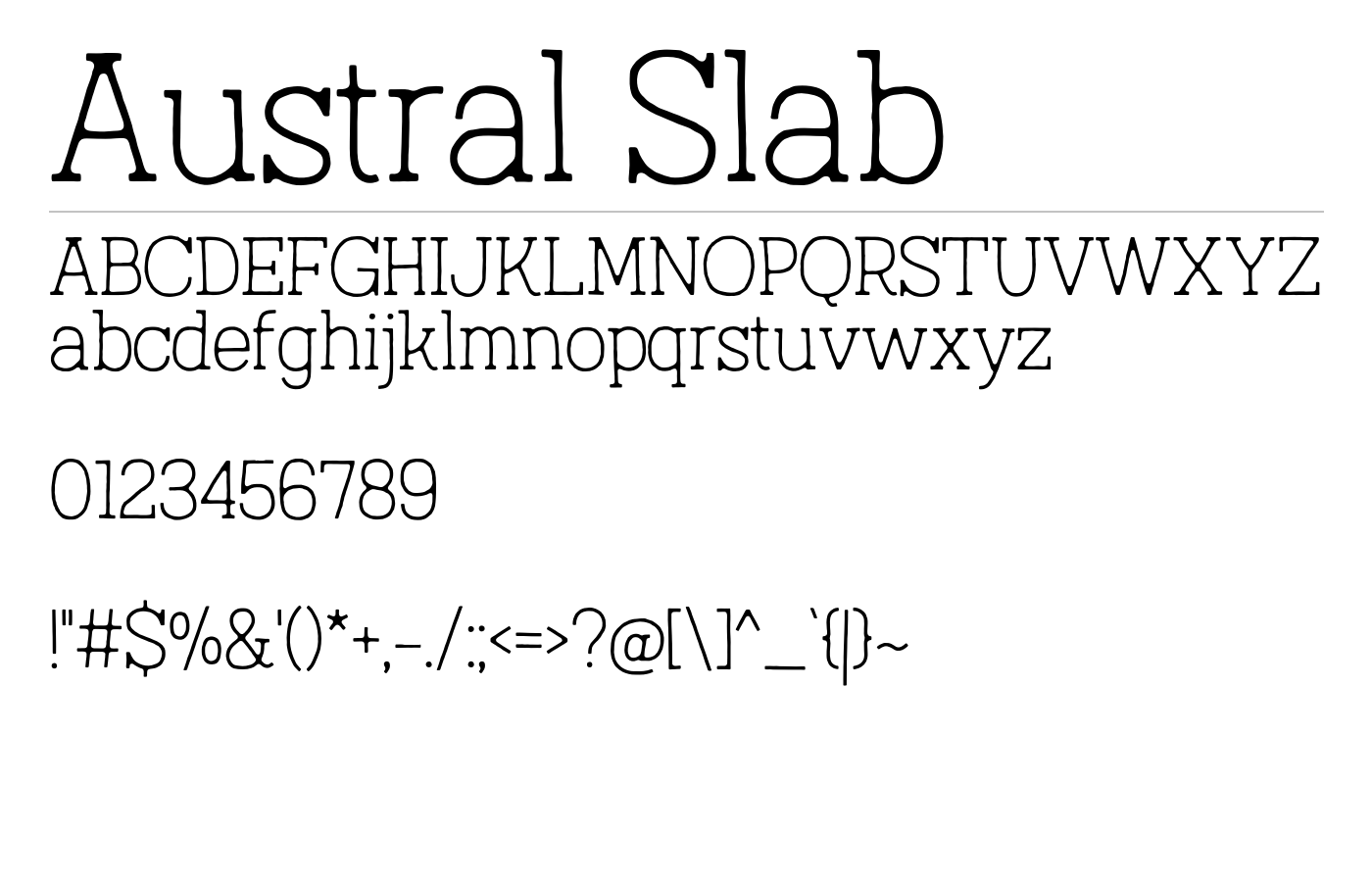
Austral Slab is a slender, serif font with a distinctive slab serif style characterized by thin, block-like serifs and a moderate contrast between thick and thin strokes. Its tall x-height and slightly irregular, hand-crafted appearance give it a friendly yet sophisticated vibe, making it well suited for editorial design, creative branding, and stylish headlines. This font works especially well where a vintage, artisanal feel is desired without sacrificing readability or modern appeal.
Austral Slab Font
About Austral Slab Font
| Font family | Austral Slab Font |
| Category | Slab-serif |
| Languages supported | Latin, Symbols, Hangul |
| Designer | Julia Martinez Diana, Antipixel |